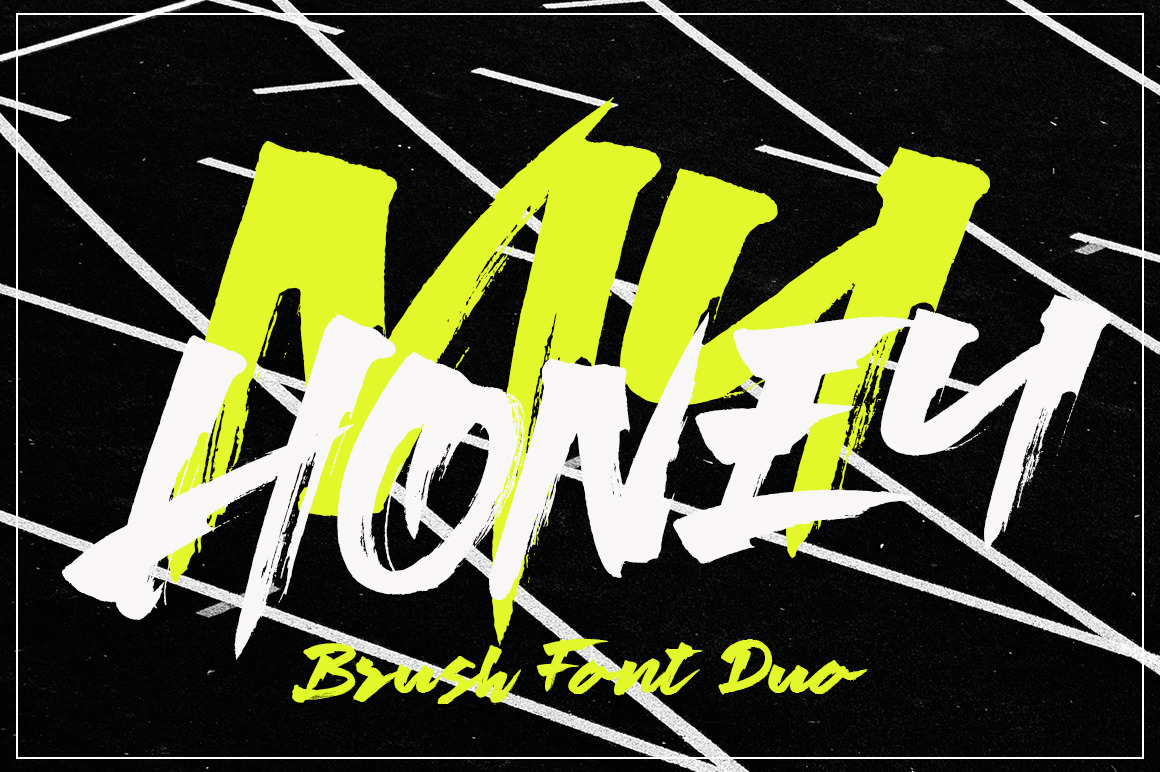
My Honey Brush Font Duo
My Honey is modern Brush font with modern style, this font will perfect for many different project ex: quotes, logo, blog header, poster, wedding, banding, fashion, apparel, letter, invitation, stationery, etc...